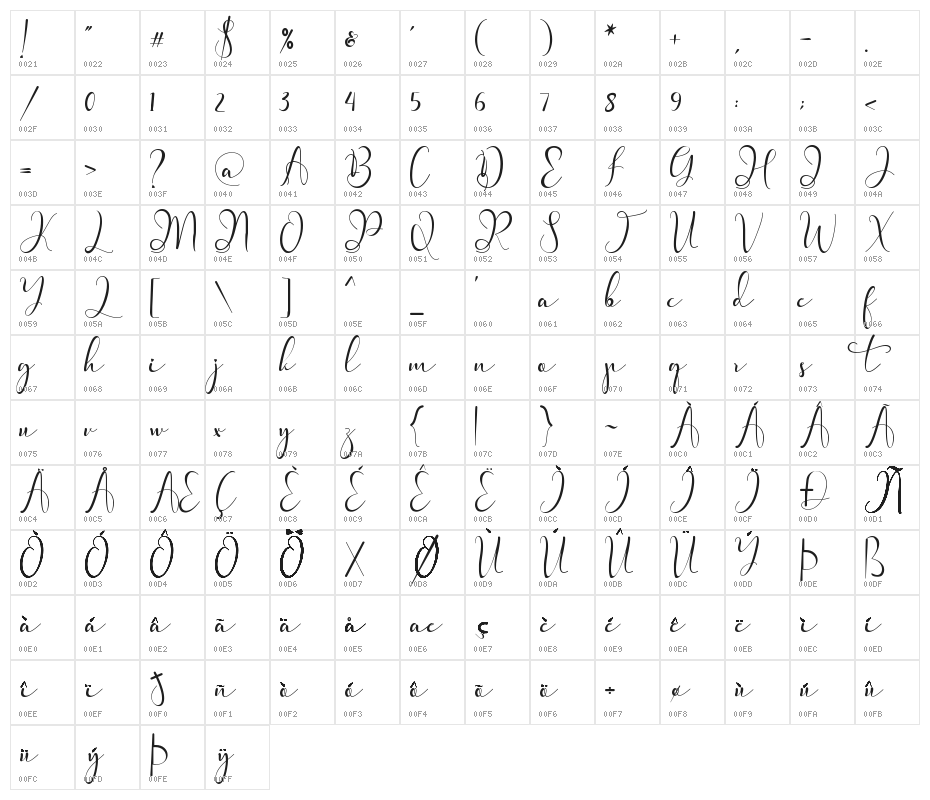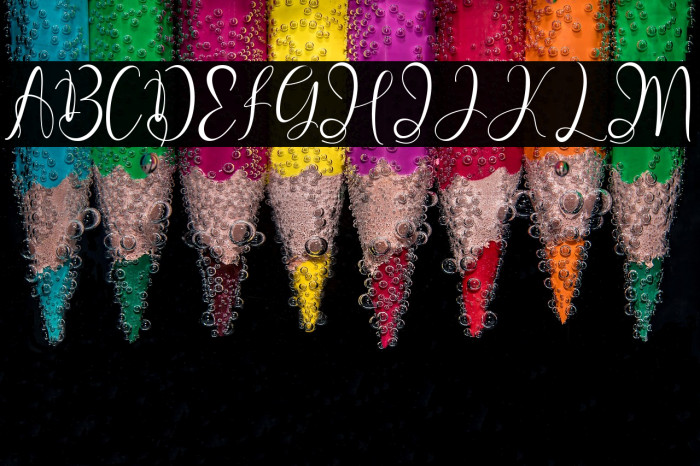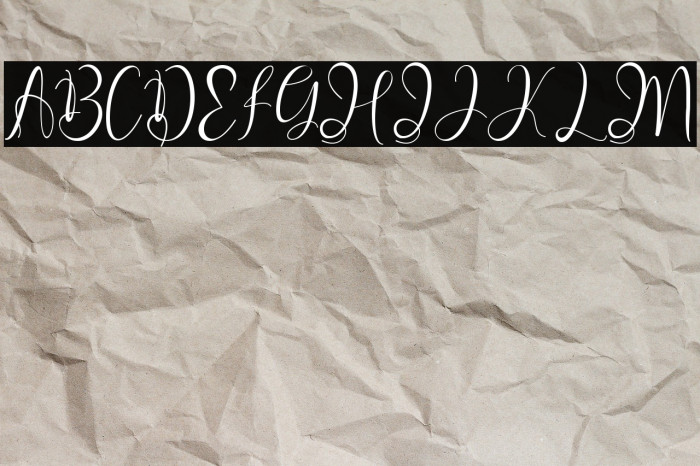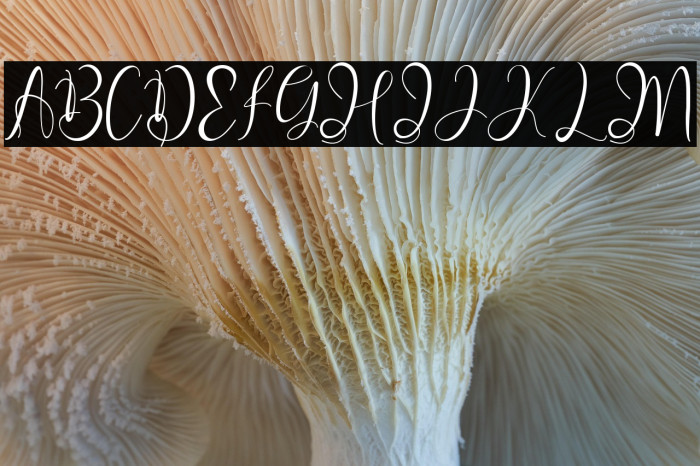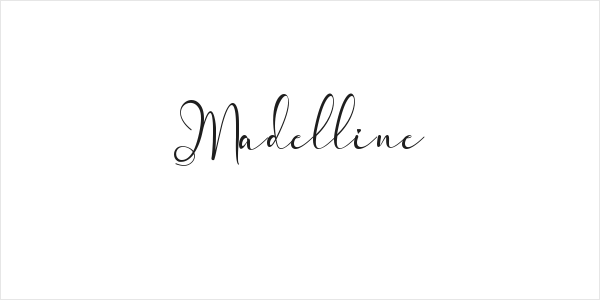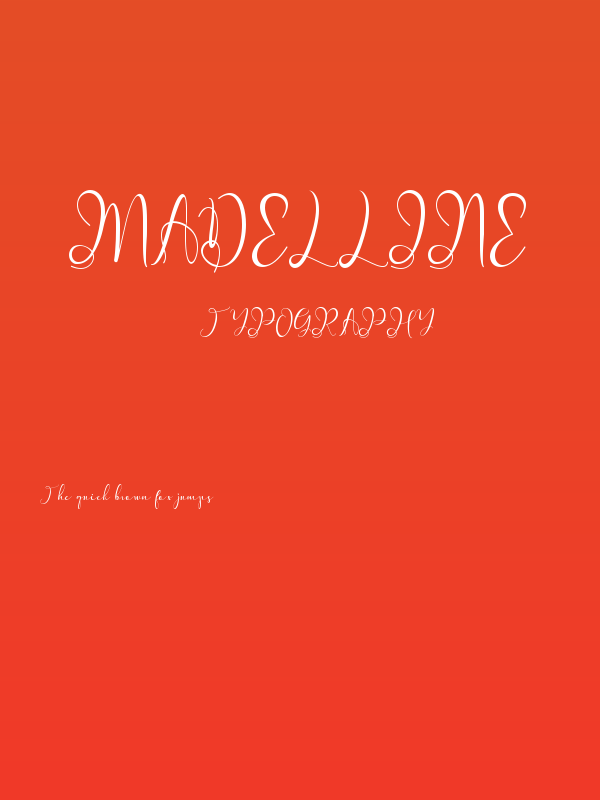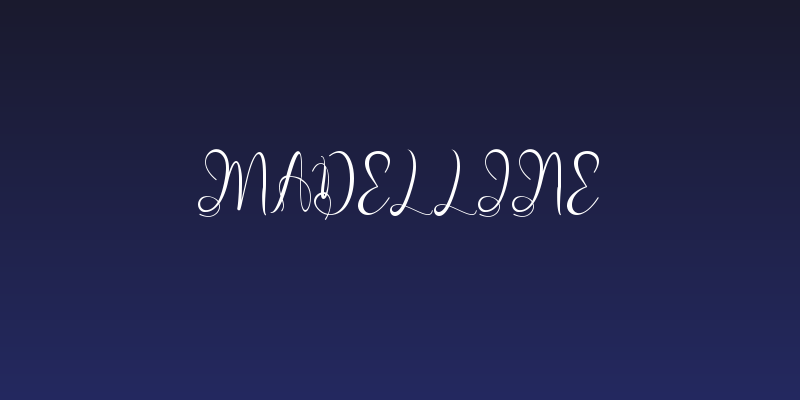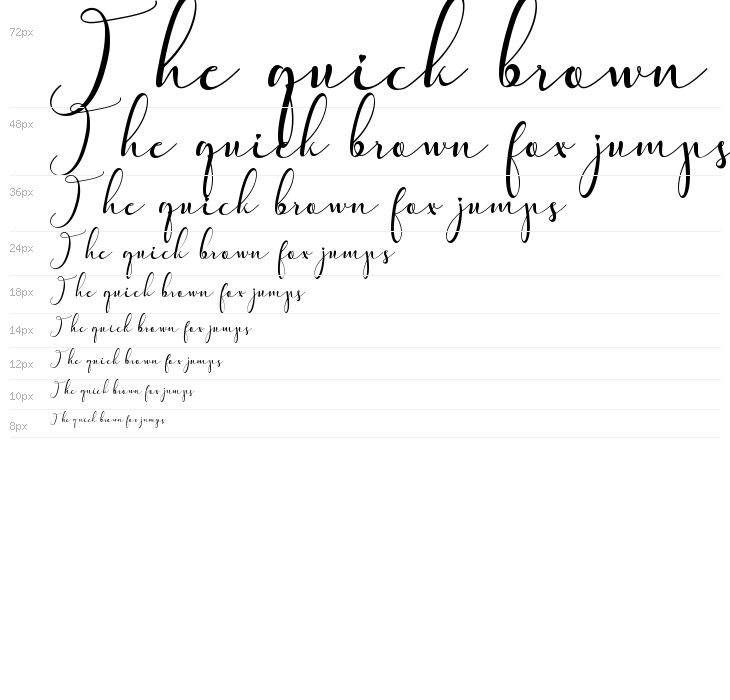
Madelline Font
Madelline Description
This elegant script font features a flowing, cursive style with intricate loops and swashes, giving it a sophisticated and artistic appearance. The uppercase letters are characterized by their ornate flourishes, while the lowercase letters maintain a graceful continuity. The numerals and special characters complement the overall aesthetic with their stylish curves and delicate lines. This font exudes a sense of elegance and charm, making it ideal for projects that require a touch of class and refinement.
| Overall Style | Elegant, Artistic |
| Proposed Projects | Ideal for wedding invitations, greeting cards, branding, and elegant logo design. |